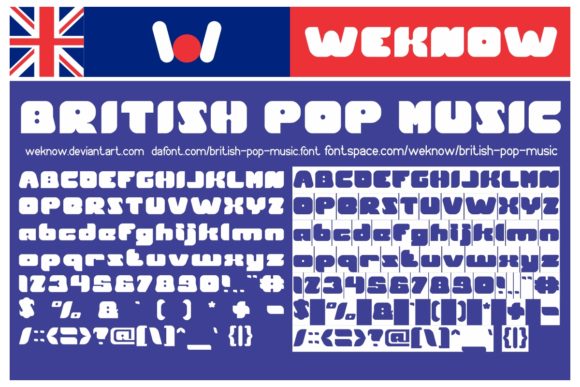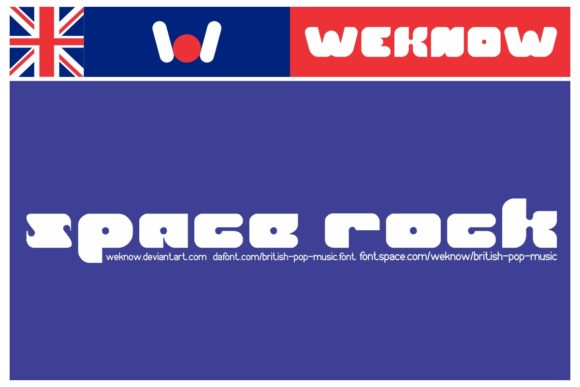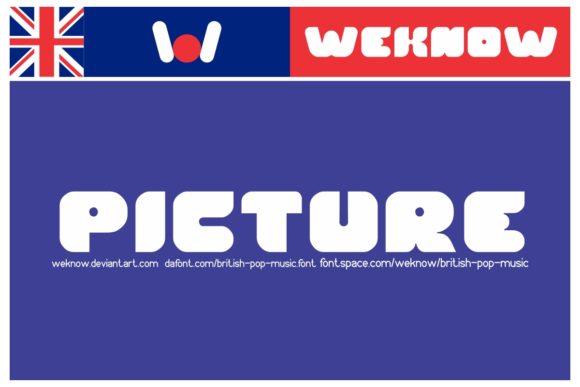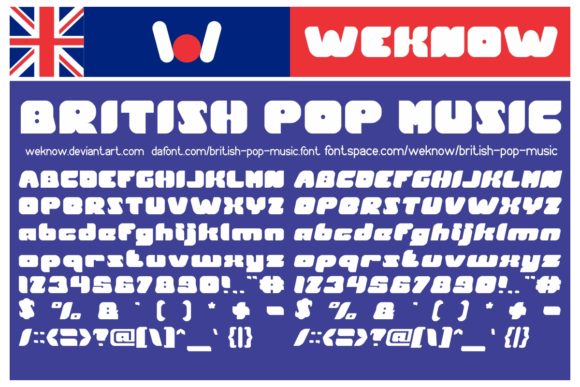
The Ultimate Guide to British Pop Music Font: Elevate Your Designs with Style
I’ll never forget the moment I stumbled upon the perfect font for a client’s branding project. I was working late, sipping on cold coffee, and scrolling through font after font, trying to find that one that would make their logo pop. And then, I saw it – British Pop Music Font. Its bold, yet sophisticated look immediately caught my attention, and I knew I had found the one. In this article, I’ll share my love for this amazing display font, its features, and how to make the most of it in your designs.
- ✅ Unique and eye-catching design: British Pop Music Font features chunky and extended characters that will make your designs stand out.
- ✅ Versatile: Perfect for logos, branding, packaging design, and more.
- ✅ Masterfully designed: The font’s creator has put a lot of thought into crafting a display font that’s both bold and sophisticated.
- ⚠️ Legibility at small sizes: As with many display fonts, British Pop Music Font may not be the best choice for body text or small font sizes.
- ⚠️ Limited use of OpenType features: While the font does offer some OpenType features, it may not have as many as some other fonts on the market.
British Pop Music Font was inspired by the iconic British pop music scene of the 80s and 90s. The font’s creator wanted to capture the bold, playful spirit of this era and create a font that would be perfect for designers looking to add a touch of British flair to their designs.
Q: What is the best way to use British Pop Music Font?
A: British Pop Music Font is perfect for logos, branding, packaging design, and more. Use it to add a bold, sophisticated touch to your designs.
Q: Is British Pop Music Font suitable for body text?
A: While British Pop Music Font is a beautiful font, it may not be the best choice for body text. It’s better suited for headlines and titles.